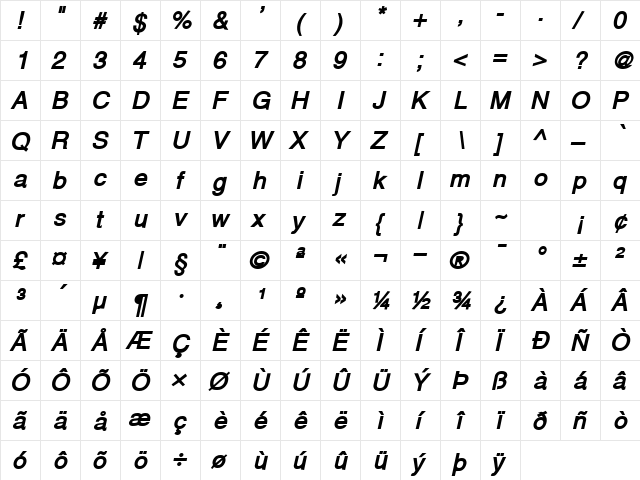
Alps Bold Italic
Design Context for Alps Typeface
Alps offers clean, dependable letterforms without strong stylistic allegiance, making it a practical choice for designers who need flexibility. The dynamic lean of this cut emphasises speed and emphasis in any layout. Its bold stroke weight gives it real presence on the page.
Pro Tip: Try Alps for annotation and caption copy alongside an upright companion — the contrast in angle creates a dynamic but ordered typographic system.